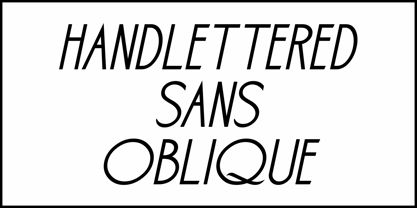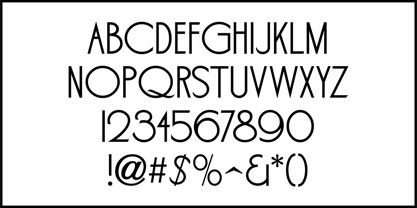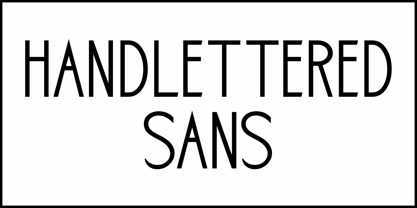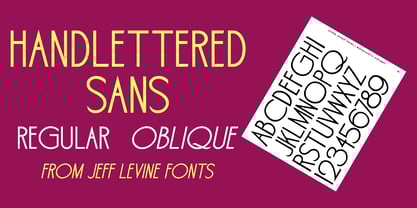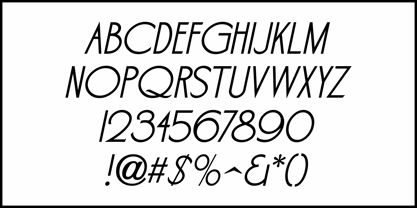
Handlettered Sans JNL
by Jeff Levine
The Handlettered Sans JNL Font Family was designed by Jeff Levine and published by Jeff Levine. Handlettered Sans JNL contains 2 styles and family package options.
A sans serif alphabet with Art Deco influences was shown in the 1942 lettering book "Simplified Show Card Writing" by Carl Rousseau Havighorst. The book was an interesting source of attractive and unusual hand lettered type styles which lent themselves well to digital type revivals. This is now avavilable as Handlettered Sans JNL in both regular and oblique versions.